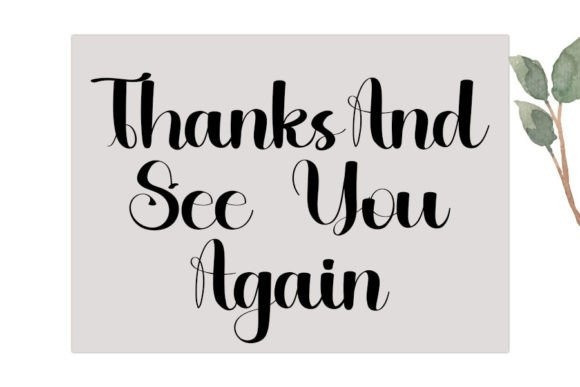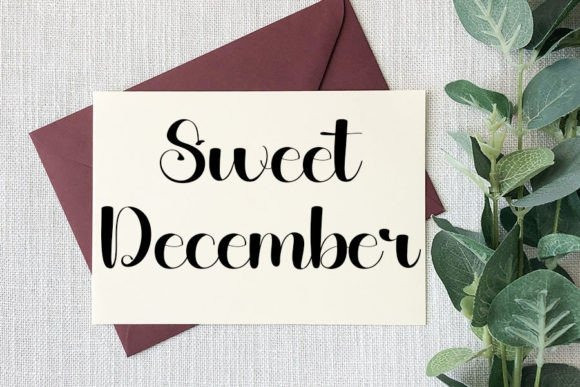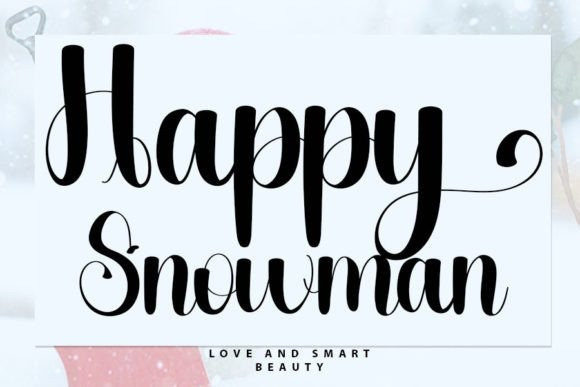
Happy Snowman Font
Happy Snowman Font is an enchanting handwritten font. This versatile script font has a wide spectrum of applications ranging from greeting cards to headlines and is guaranteed to add a romantic feel to your next project.